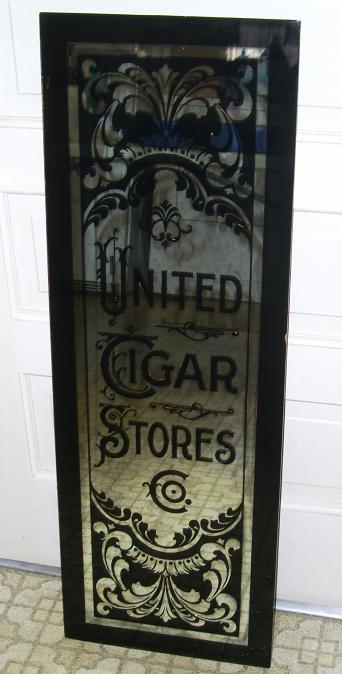
Cigar Store Mirror - Finished
Well after seeing Dave's post and master work I am a little timid about showing my achievement for the day which was finishing the project I was working on. I see I have a ton to learn but I sure love playing!
here it is....
Hi Rob,
Are the 2nd & 3rd photos defferent from the 1st.It looks like the the back ground is clear in those and the 1st is mirrored. The shadows of the lettering is what confusing me.I all so see some small bits of what appear to be mirroring around the edges of some of the letters and designs that look nice.
I like the simplisity of your.What size is it?
It is amazing how many versions of this sign I've seen. Larry White has the largest one I know of. Maybe he'll post a photo of it.
Roderick,
I would love to know what all of you guys do but I have my own way of making things look different. I go for vintage instead of new, I like it when things give the illusion of falling apart and revealing another backing which to me looks real! When I am mirroring I arrest certain areas of the mirror with Liver and throw stuff like witing, rottenstone, cirium and so on into the wet silvering about the 1 minute mark and then for the authentic look I spray the back of the new silver with copper (real metal finish) spray paint and then back it in 1shot black. What happens is anything raw gets copper tones to it as does the areas that I arrested early gets a coppery silver tone and the pitting look crazy old! I also like to chip off areas of the paint using tape applying and then pulling off which then get a coppery black tone. I like it when I see an antique mercury glass mirror taking as many pics as I can get and then figuring out how to make a new piece of glass to get that same look.
By the way the things that look goofy are an illusion as I use the ceiling (which is white) and the flash of the camera toss shadows which make it look that way. I hate trying to take pics of mirrors but I love to do them!
Rob,
The shadows were throwing me off. They made it look like the background is clear.
I find it interesting you use the word "Vintage". I have clients that want brand new Vintage and others that want antiqued Vintage.
The whole antique mirroring thing for me started when I had chipped "Chapman and Smith Co signs and wanted to silver them. I bought the stuff and tried and did get very good results. I left one in the corner of the shop.The other I had silvered locally.It came out perfect.
A while later someone saw the one I concidered to be bad and asked how old it was,that it looked like an antique. The mirror was dark and blotchy. I was going for new bright mirroring. I looked at it again and realized they were right.It did look very old.I finished outlining the lettering and framed it. At the next conclave I went to there wasn't much room to hang anything so I just left in the front room and went inside. Within an hour somebody came in the back asking who's old Rawson & Evans was in the front room.I had no idea they were talking about that piece.
After that I shared the antique mirroring and framing with everyone in the group. They have taken it in some really cool directions. It's nice to see your work added into the mix.